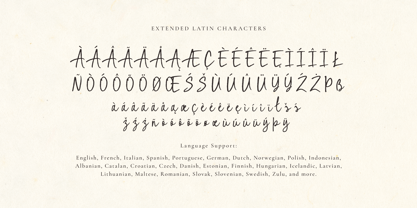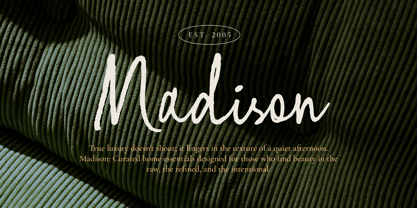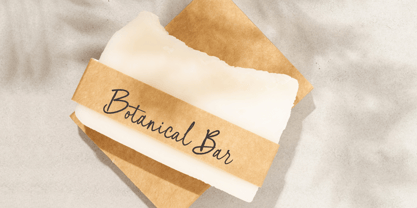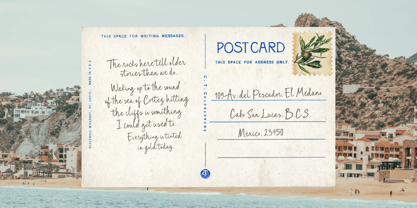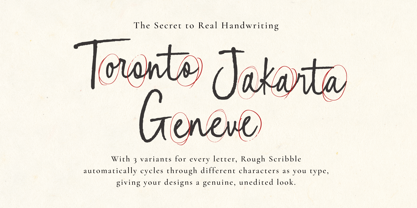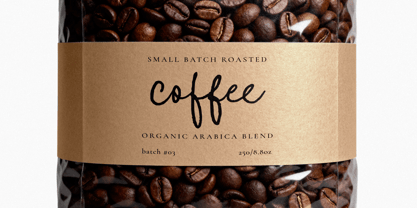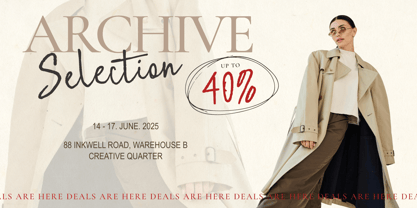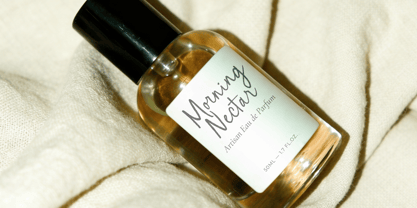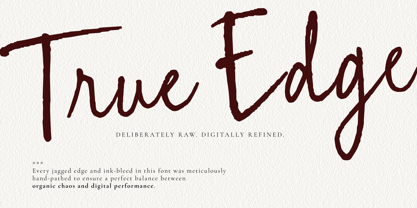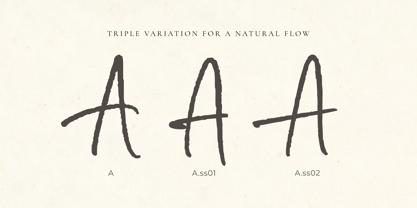
Rough Scribble
The Rough Scribble Font Family was designed by Luthfi Fauzi and published by Ef Studio. Rough Scribble contains 1 styles. More about this family
Bring an authentic, archival soul to your creative projects. Rough Scribble is a high-end script font that masterfully balances the ruggedness of "ink-on-paper" with a refined, modern aesthetic. Designed by EF Studio, this typeface captures the essence of manual handwriting, making it the perfect choice for premium apparel branding, artisan coffee packaging, apothecary labels, and sophisticated wedding stationery. Rough Scribble adds a distinct, human-centered feel to every layout. Why it stands out: 3x Rotating Alternates: This font is built with an intelligent cycle that automatically alternates between three different versions of each character, ensuring your text looks like genuine, organic handwriting. Never repetitive. *make sure Contextual Alternates feature enabled. Seamless Ligatures: Engineered for a flawless flow, the ligatures ensure that every letter connects naturally, mimicking the rhythm of a real pen. *make sure Standard Ligatures feature enabled. Raw Ink Texture: Features subtle, jagged edges and an "ink-bleed" effect that gives your typography a tactile, artisan feel.